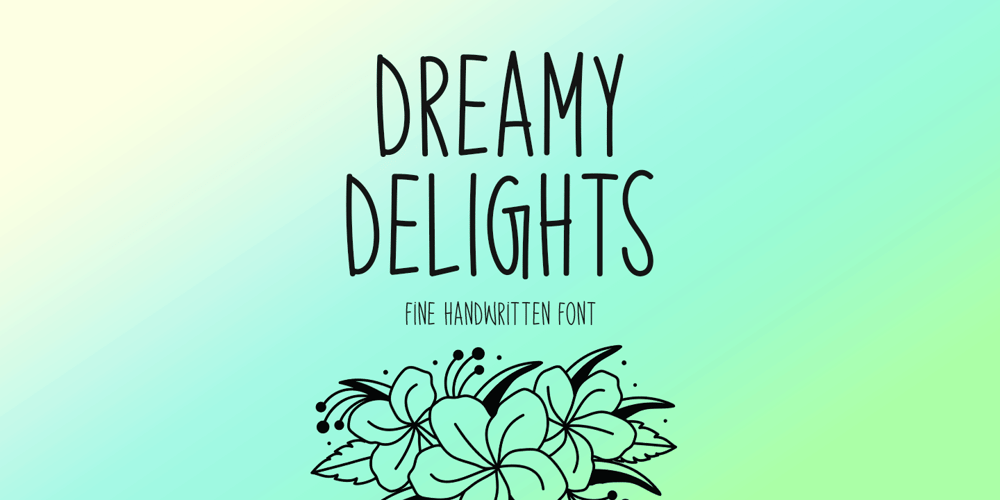
Dreamy Delights Font Family was designed by Md Shohail Bhuian and published by Seemly Fonts. Dreamy Delights contains 1 styles and family package options. Discover Dreamy Delights, a captivating handwritten font that exudes charm and elegance. Designed to fit a variety of purposes, such as clothes, promotions, and stationery, its adaptability adds refinement to any design project. When creating logos, advertising, or decor, Dreamy Delights’s elegant lines conjure a classic appeal that lends sophistication and flair to work. Let your creativity run wild with this timeless, versatile font.